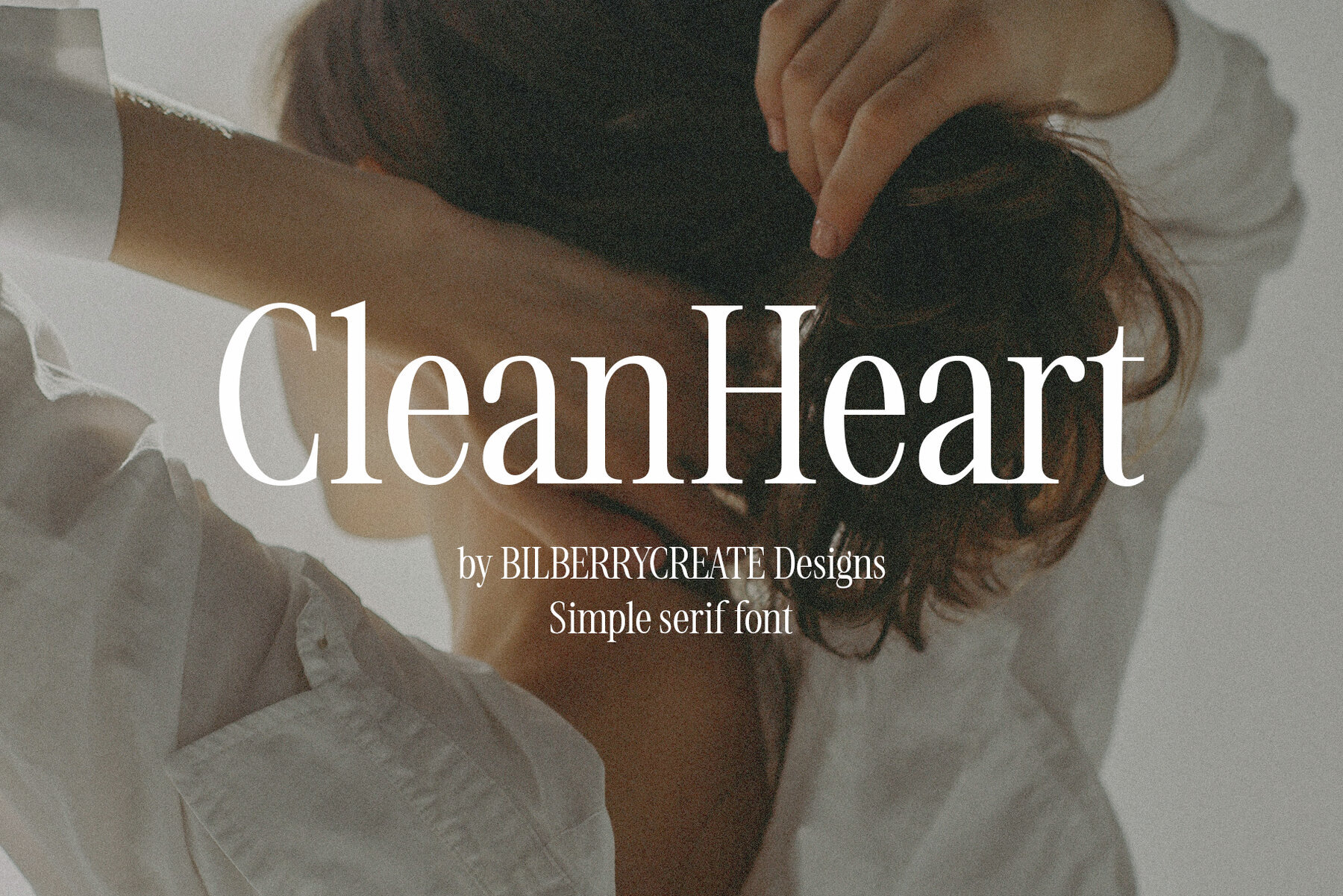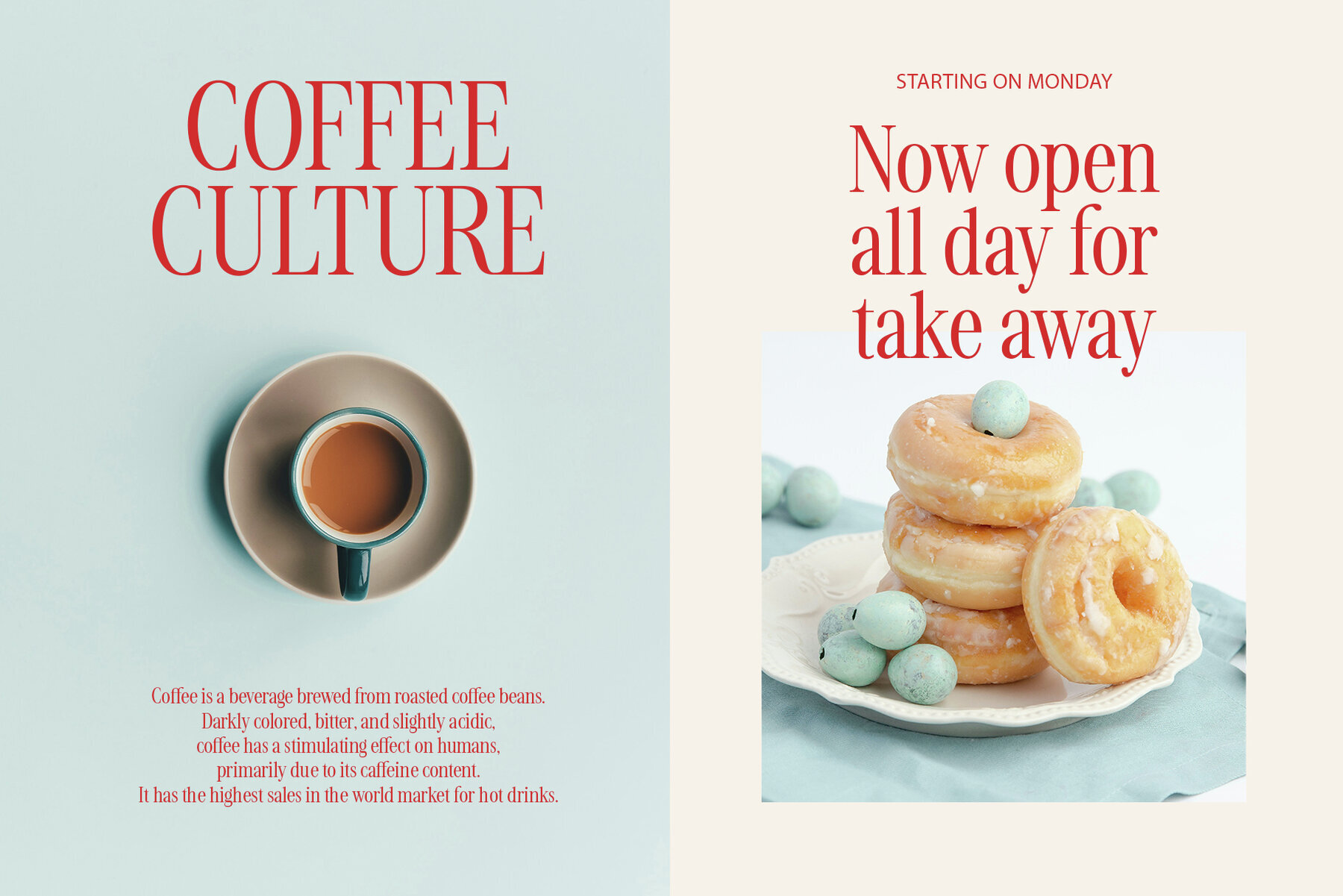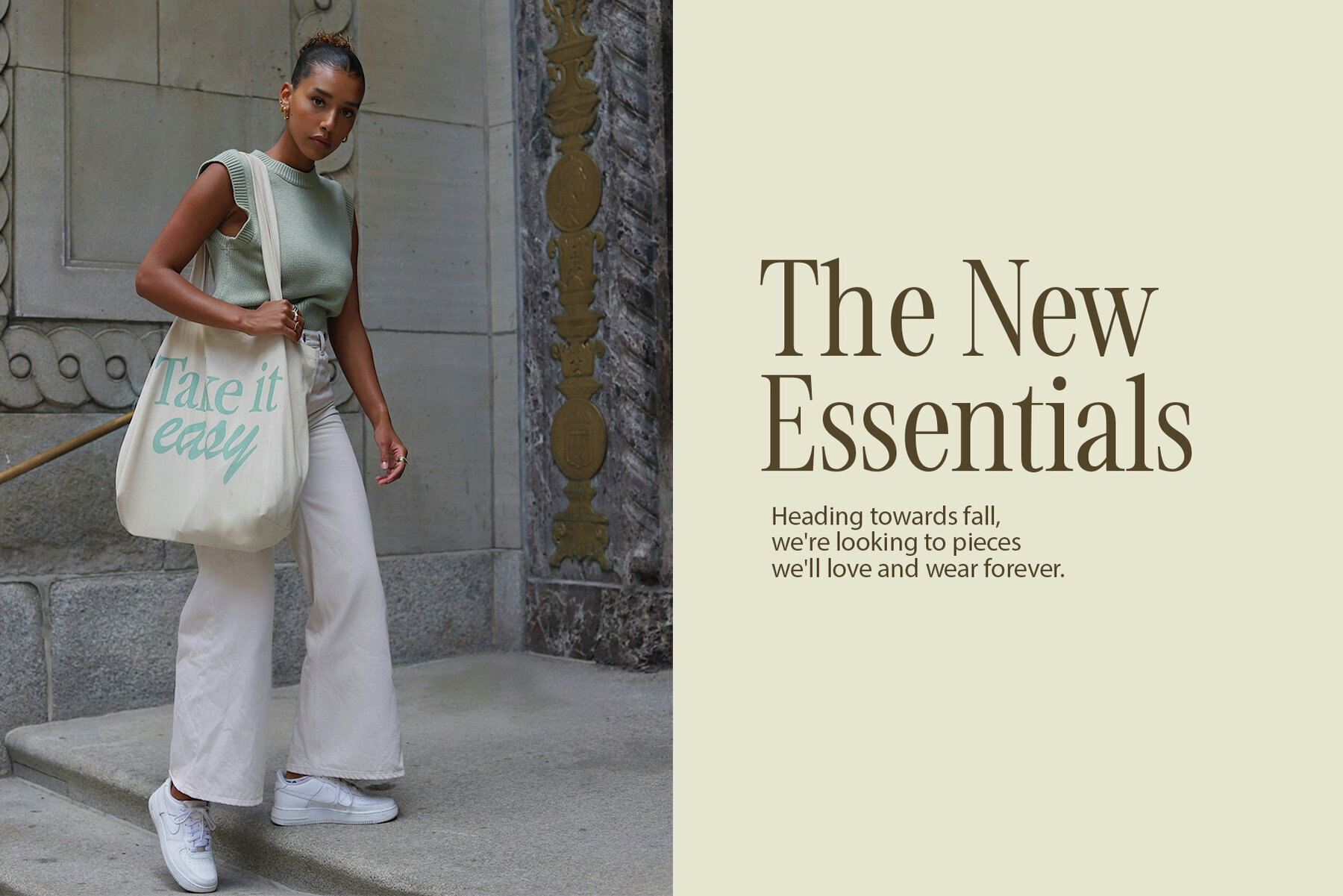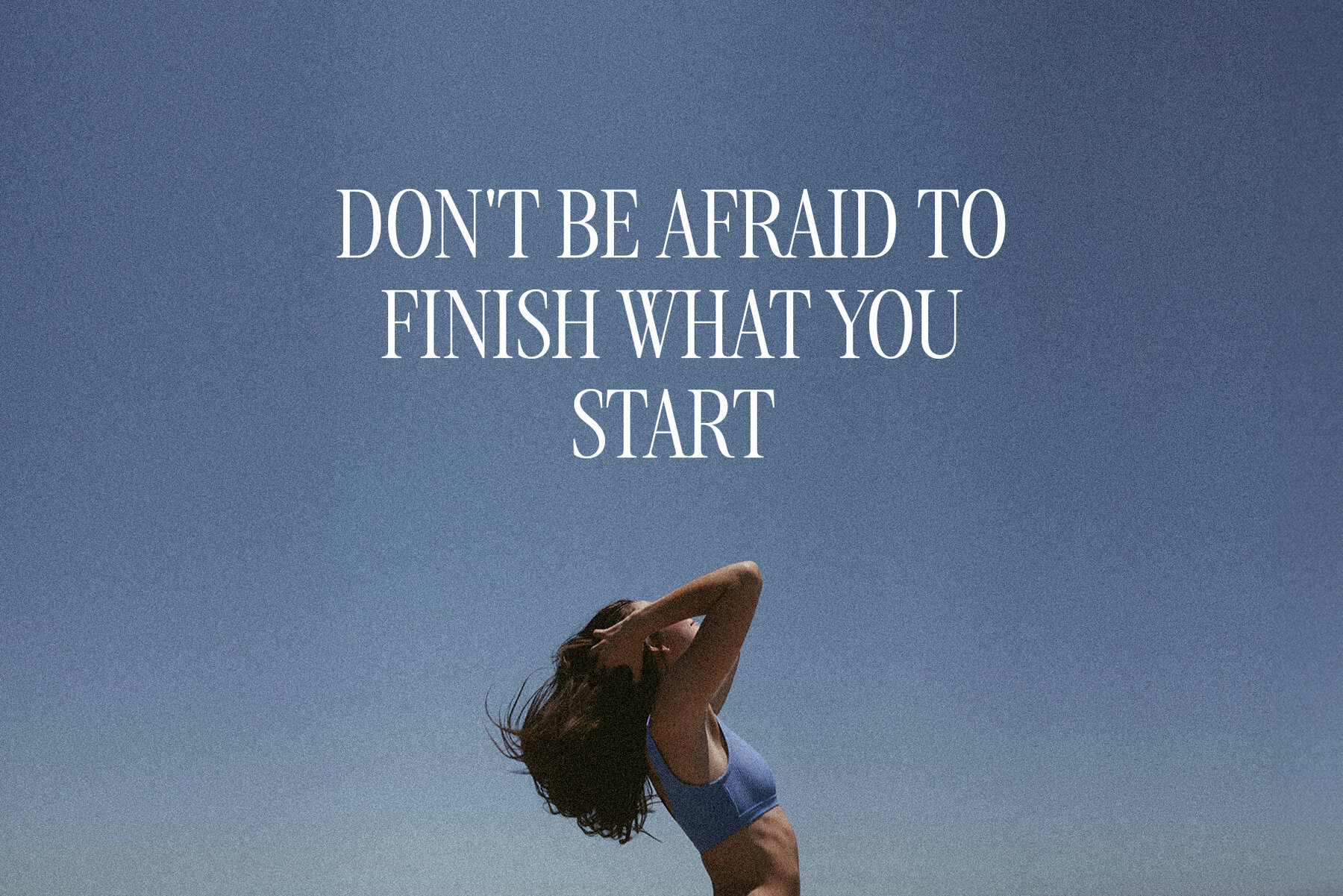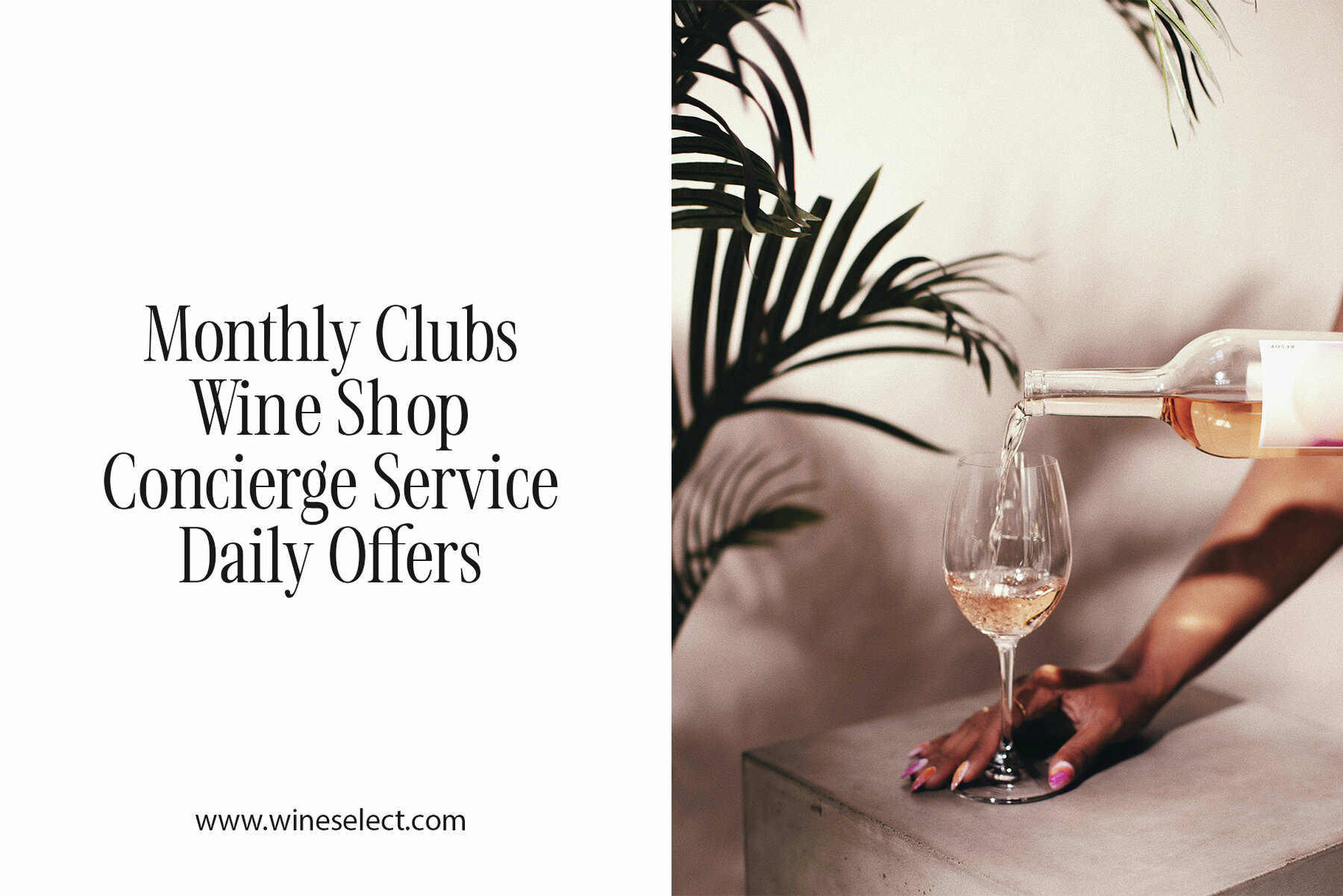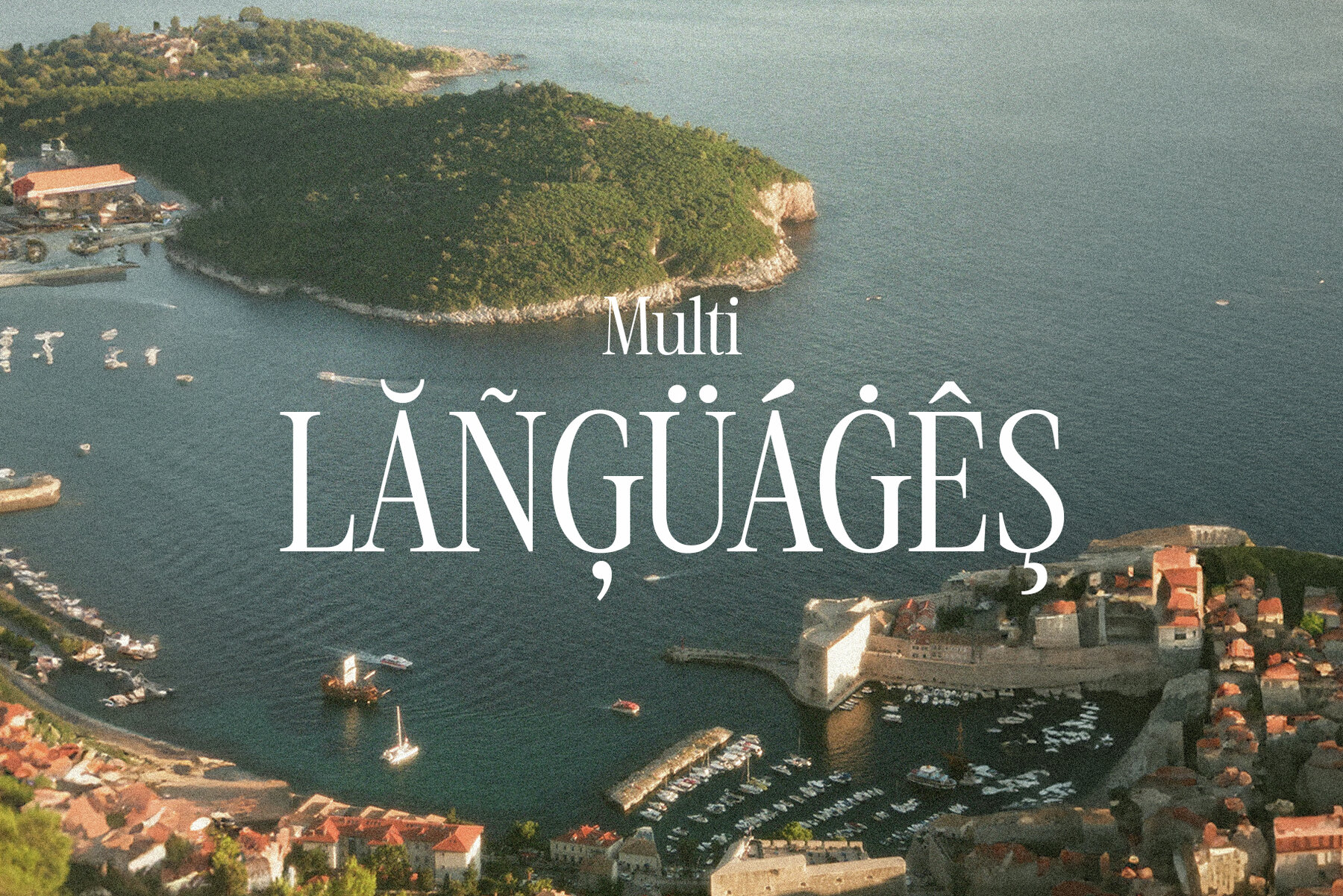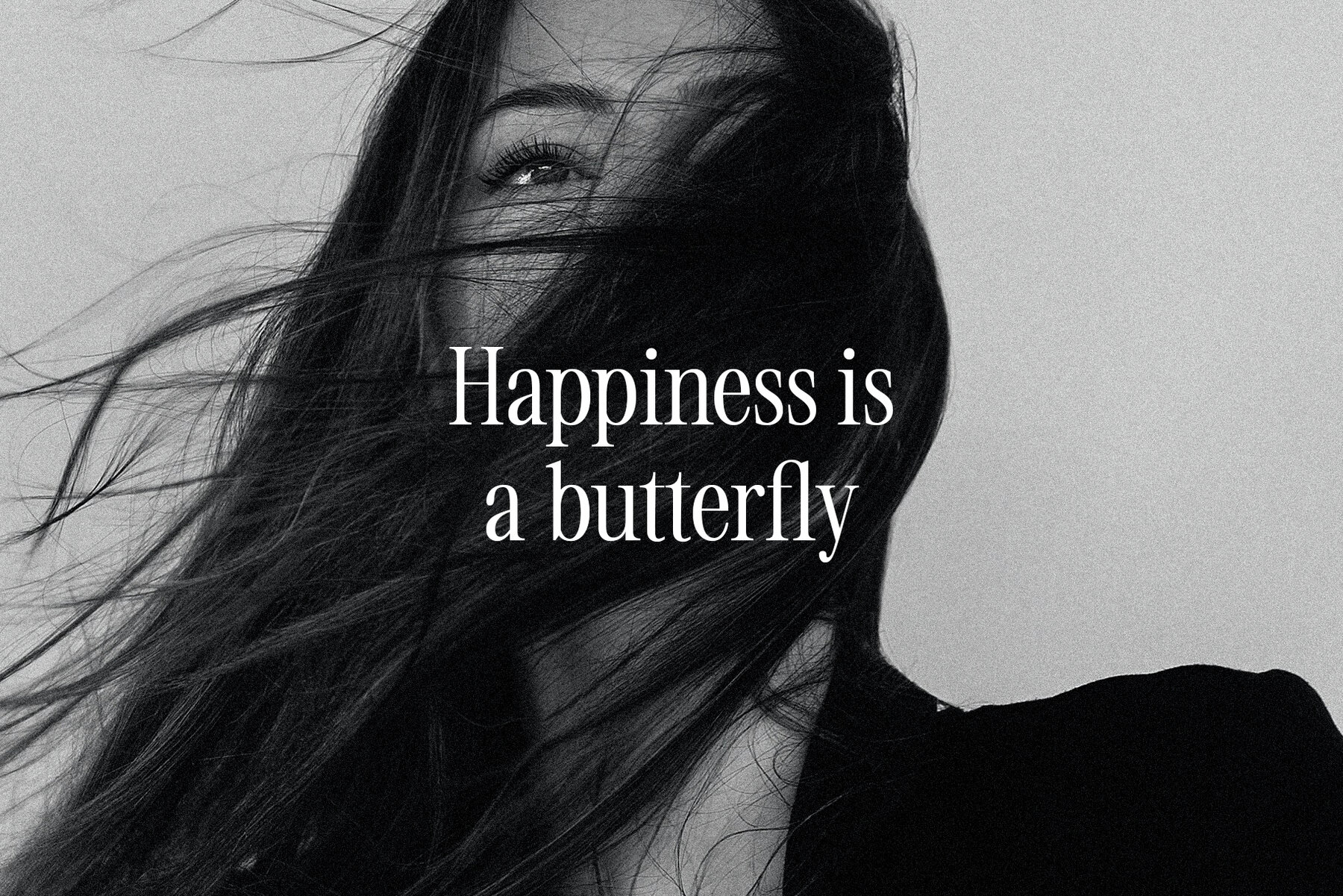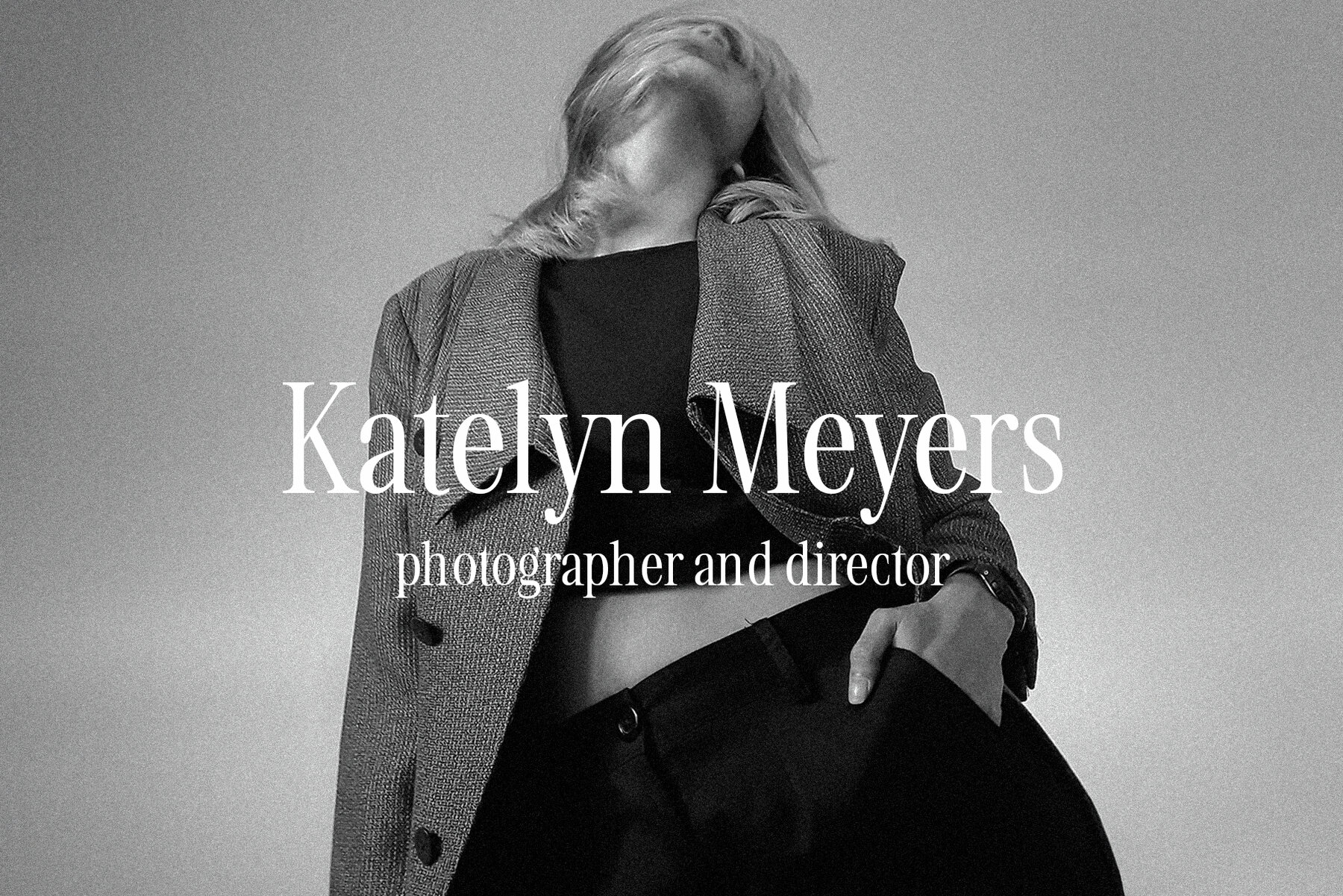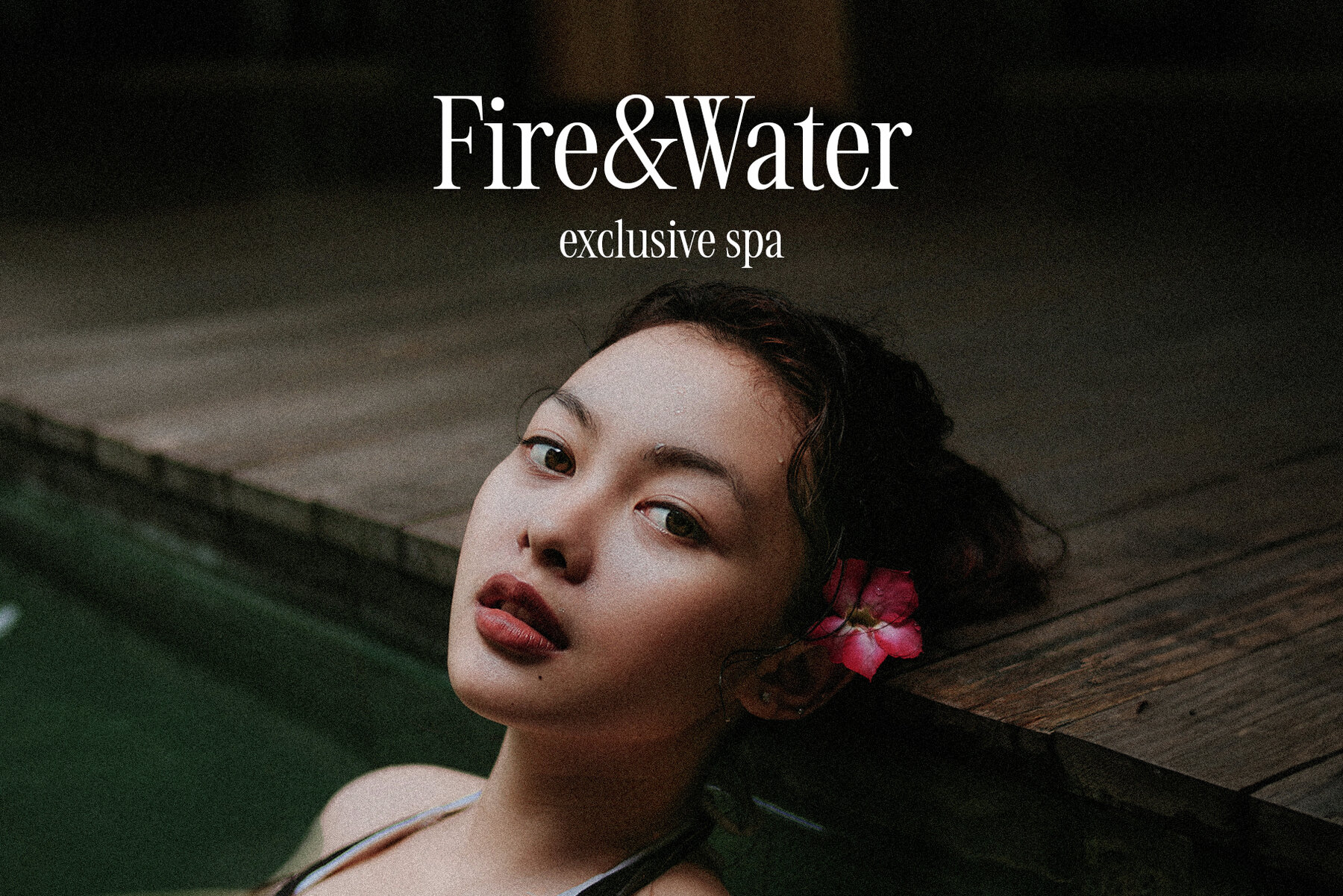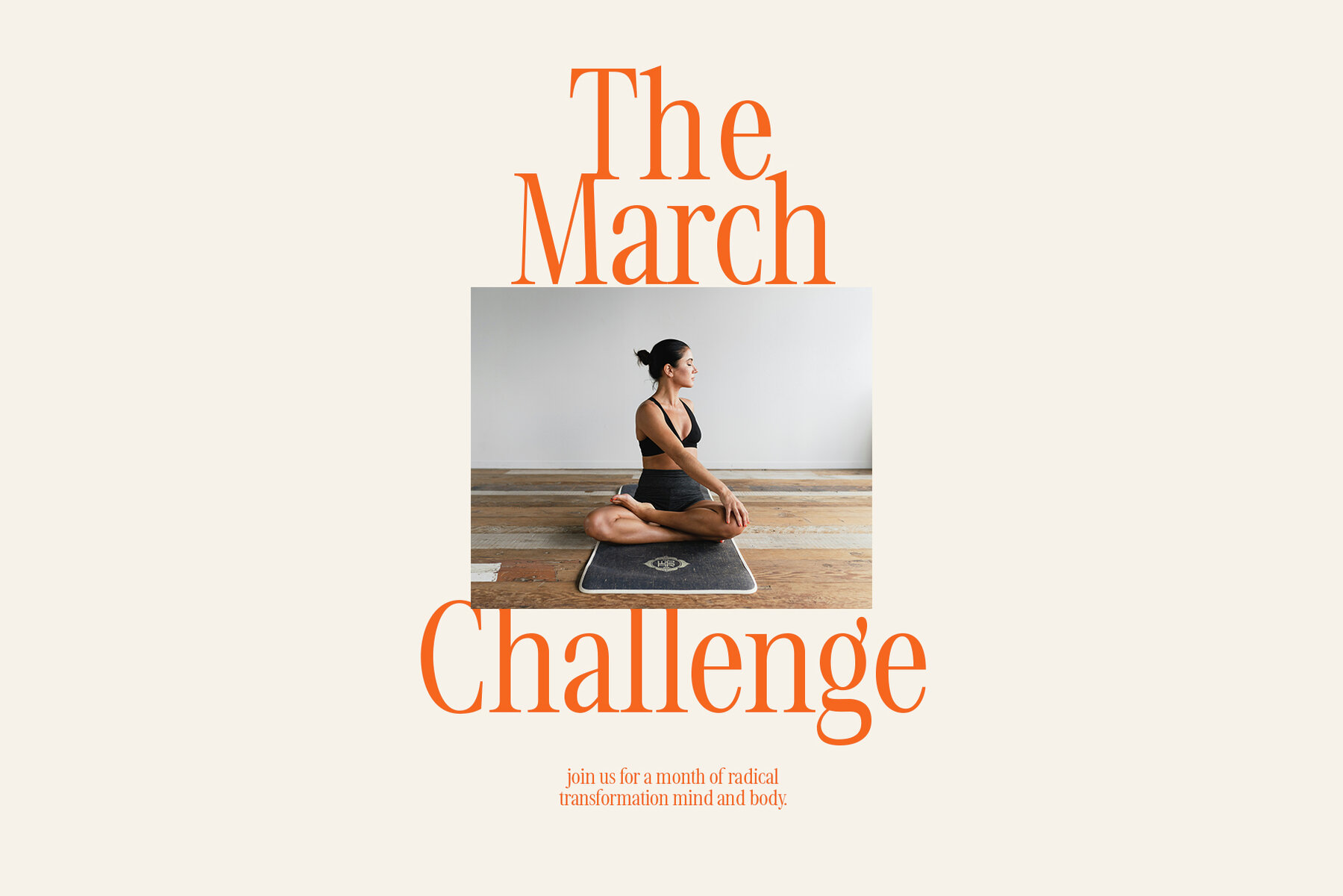
CleanHeart Font
Clean Heart Regular
This font has a strong presence with high contrast between its thick and thin strokes, indicative of a transitional serif typeface. The refined serifs and vertical stress give it a classic yet modern feel, making it suitable for both display purposes and text-heavy documents. Its versatility bridges the gap between traditional elegance and contemporary styling.